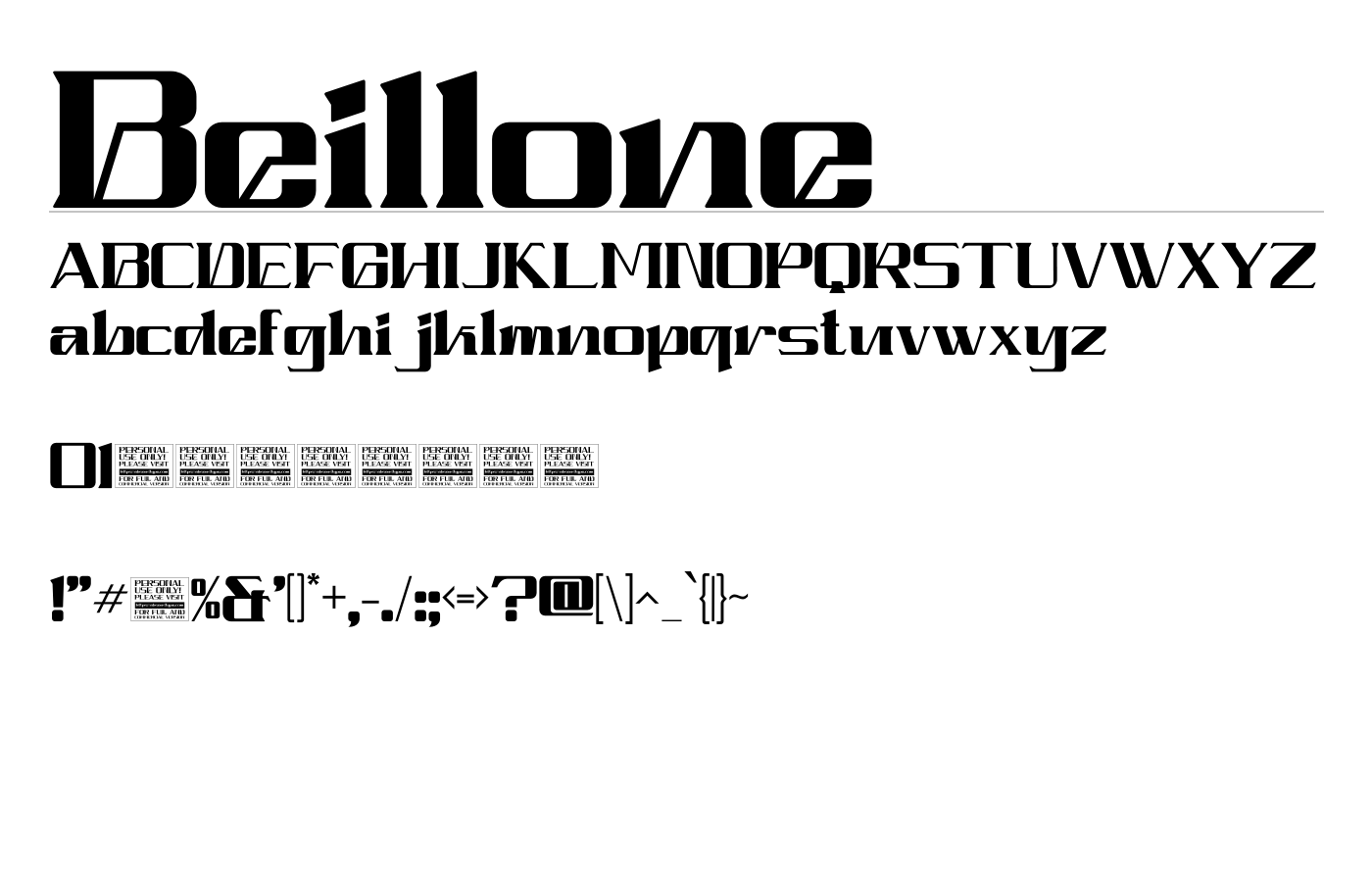
Beillone is a bold, modern serif font with a distinct geometric and angular style, featuring high contrast between thick and thin strokes and sharp, unique letterforms. This font conveys a strong, contemporary personality that suits striking headlines, branding, and editorial projects where a futuristic and confident look is desired. Its sharp details and unusual shapes make it ideal for making a memorable visual impact in fashion, tech, and creative industries.
Beillone Font
About Beillone Font